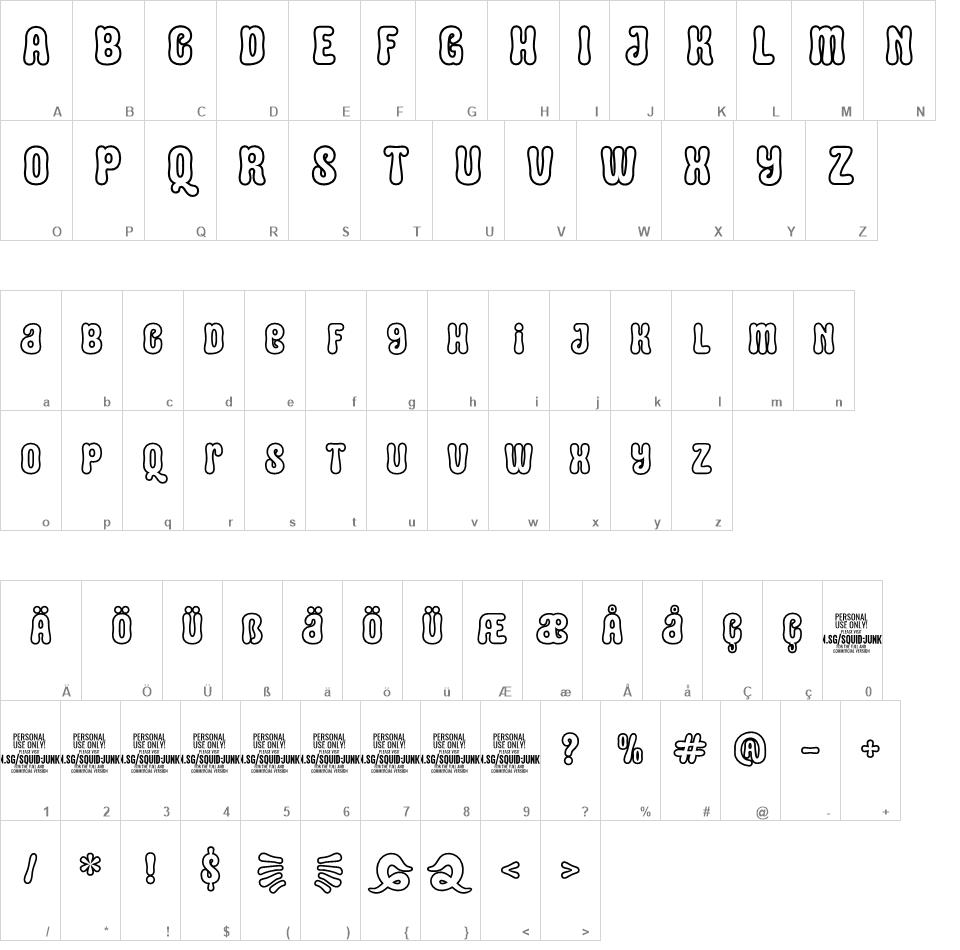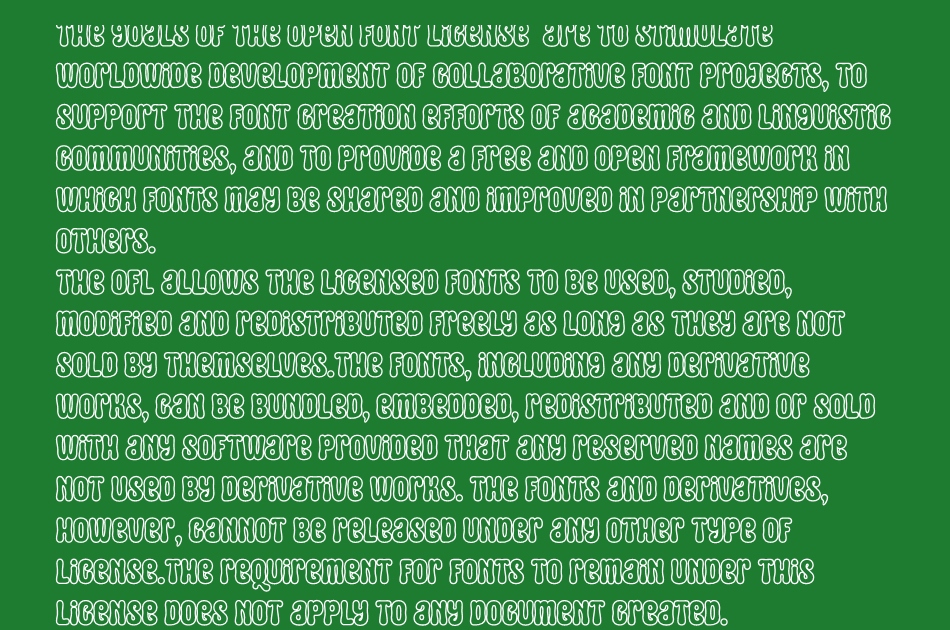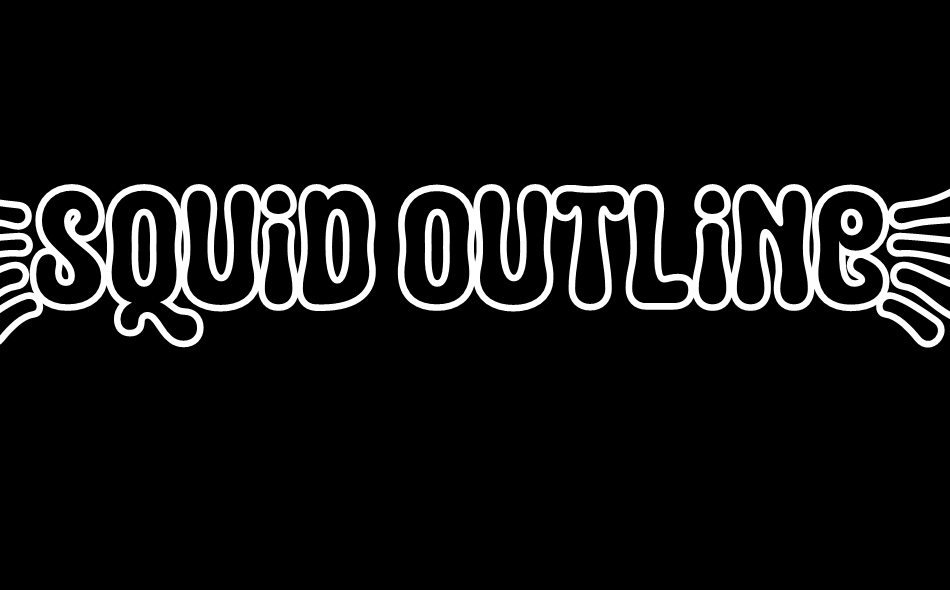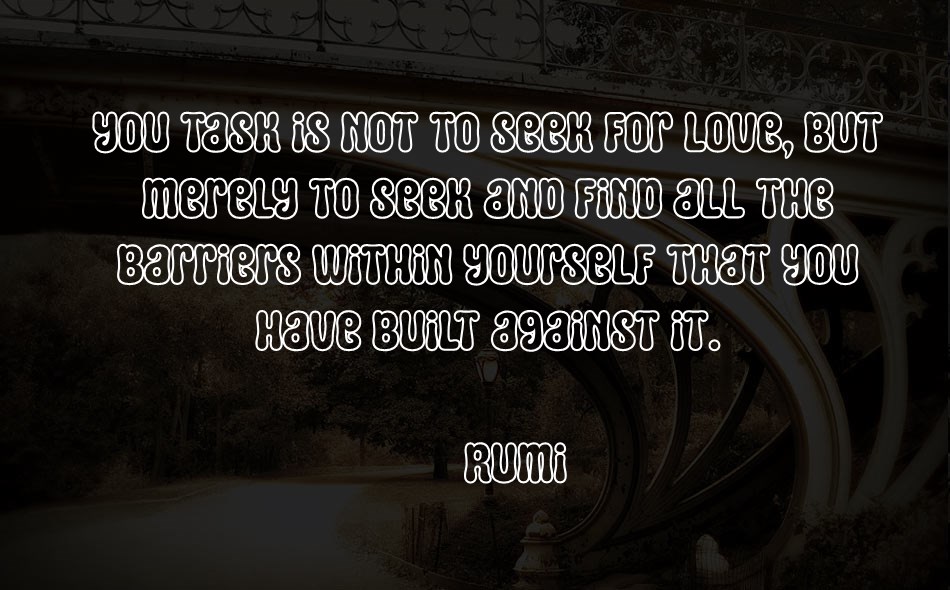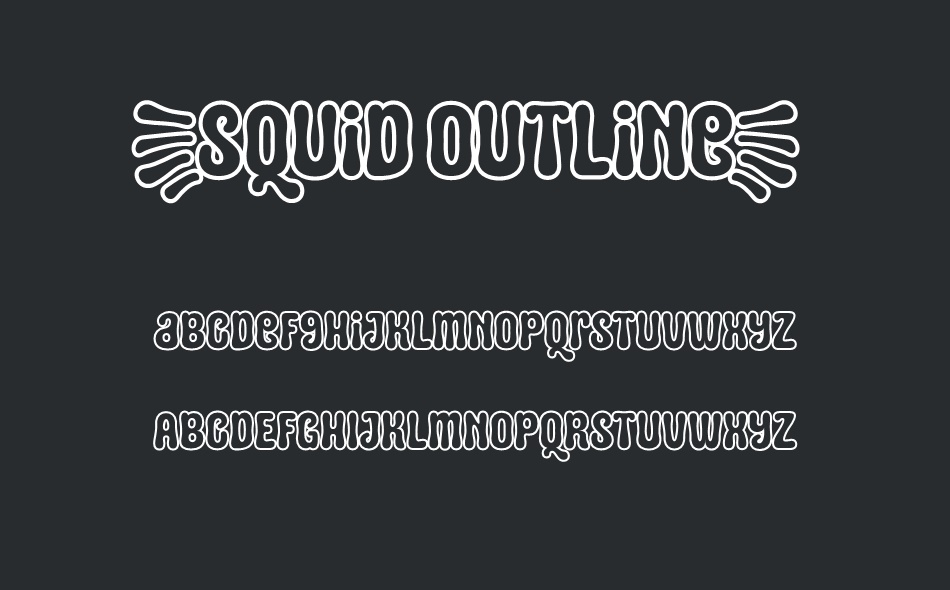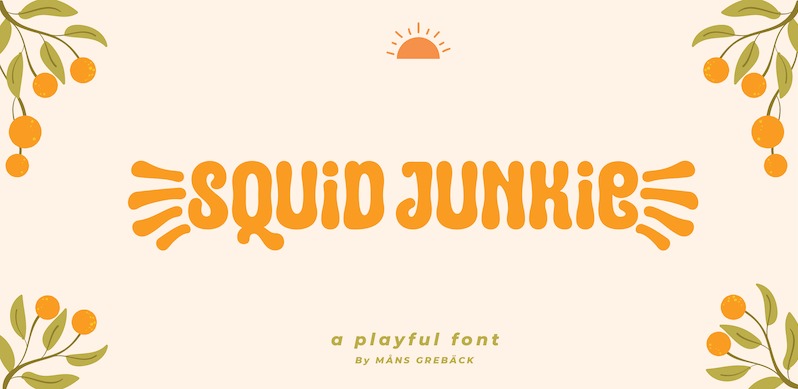
Squid Junkie font
Use parenthesis symbols ( ) { } [ ] to create tentacles.
Example: [OCTUPUS]
Squid Junkie is a bold and vibrant tribute to the funky, hippie-inspired designs of the past. With its playful, cartoonish aesthetic and playful use of line and color, this sans-serif font is the perfect choice for designers looking to inject a touch of retro fun and humor into their projects.
With its versatile range of styles, including regular, light, and bold weights, each with its own italic counterpart, this font is designed to meet the needs of designers of all levels.
But that's not all - Squid Junkie is also available as an outlined font, giving you even more options for making your designs stand out.
Use parenthesis symbols ( ) { } [ ] to create tentacles. Example: [OCTUPUS]
The font is built with advanced OpenType functionality and has a guaranteed top-notch quality, containing stylistic and contextual alternates, ligatures and more features; all to give you full control and customizability. It has extensive lingual support, covering all Latin-based languages, from Northern Europe to South Africa, from America to South-East Asia. It contains all characters and symbols you'll ever need, including all punctuation and numbers.